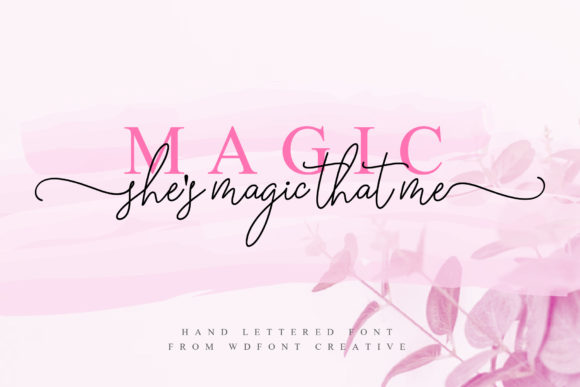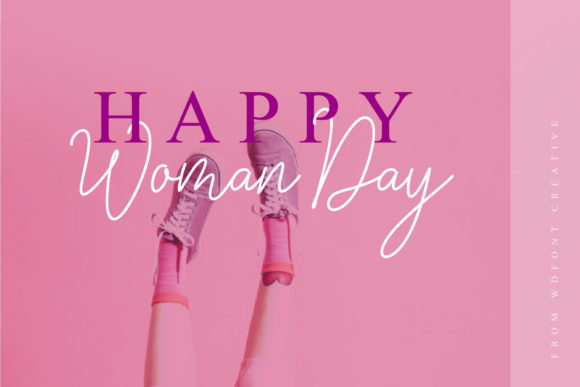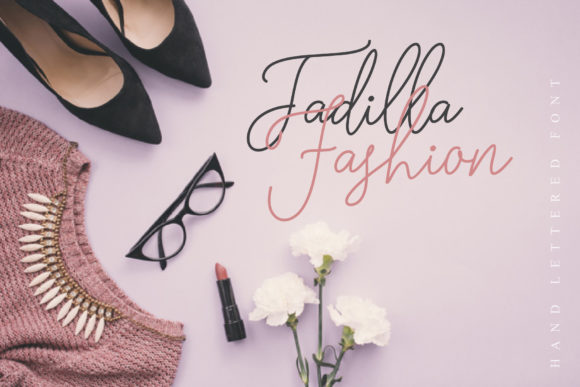
Introducing Adolin Font: Elevate Your Design with Elegance and Magic
In the world of typography, fonts play a crucial role in bringing a design to life. Among the numerous fonts available, Adolin stands out as a beacon of elegance and sophistication. This classic handwritten font is designed to add a spark of magic to any design project, making it a perfect choice for designers and crafters looking to infuse their work with a touch of refinement and charm.
The Essence of Adolin Font
Adolin is more than just a font; it’s an experience. Its elegant strokes and classic appeal make it versatile for a wide range of design projects, from wedding invitations and branding to packaging and digital content. The font’s unique charm lies in its ability to convey a sense of luxury, sophistication, and warmth, making it an excellent choice for projects that require a personal touch.
Why Choose Adolin Font?
• Elegance and Sophistication: Adolin brings an air of elegance and sophistication to any design. Its classic handwritten style is perfect for projects that require a refined and luxurious feel.
• Versatility: Whether you’re working on a wedding invitation, a brand logo, or a digital blog post, Adolin’s versatility ensures it complements your design beautifully.
• Easy to Read: Despite its elegant and cursive nature, Adolin remains highly legible, making it suitable for both headings and body text.
• Unique and Memorable: In a sea of sans-serif fonts, Adolin offers a refreshing change with its distinctive handwritten appeal, ensuring your design stands out.
Adolin in Design Projects
Adolin’s adaptability makes it a favorite among designers for various applications:
• Wedding and Event Design: Create stunning wedding invitations, save-the-date cards, and event banners that set the tone for an elegant and memorable occasion.
• Branding and Logo Design: Elevate your brand’s identity with a sophisticated and timeless logo that communicates luxury and quality.
• Digital Content: Enhance your blog posts, social media graphics, and website headers with a touch of elegance and personality.
• Packaging: Stand out on store shelves with product packaging that exudes refinement and attention to detail.
Tips for Using Adolin Font Effectively
To maximize the impact of Adolin in your designs, consider the following tips:
• Pair with Complementary Fonts: Combine Adolin with clean sans-serif fonts for contrast and visual interest.
• Adjust Letter Spacing: For headings, slightly increase letter spacing to enhance elegance.
• Limit Color Palette: Stick to a few colors that complement the font’s natural hues for a cohesive look.
• Experiment with Sizes: Play with different font sizes to create a hierarchy of information and add dynamism to your design.
Adolin font is a powerful tool in the arsenal of designers and crafters aiming to add a spark of magic to their projects. Its elegant and classic handwritten style, combined with its versatility and readability, makes it an excellent choice for a wide range of design applications. By incorporating Adolin into your designs, you’re not just choosing a font; you’re embracing a design philosophy that values elegance, sophistication, and personal touch. So, let Adolin be the spark that elevates your designs to new heights of creativity and appeal.